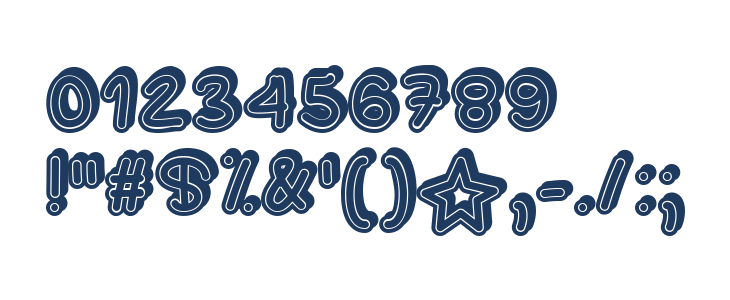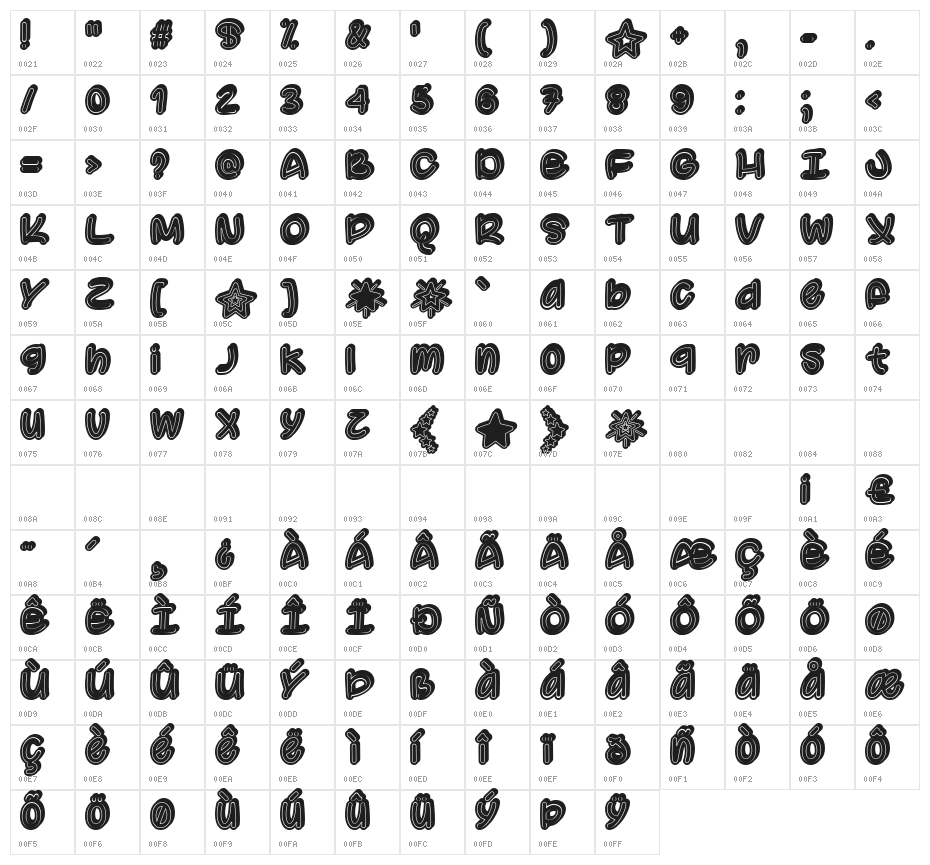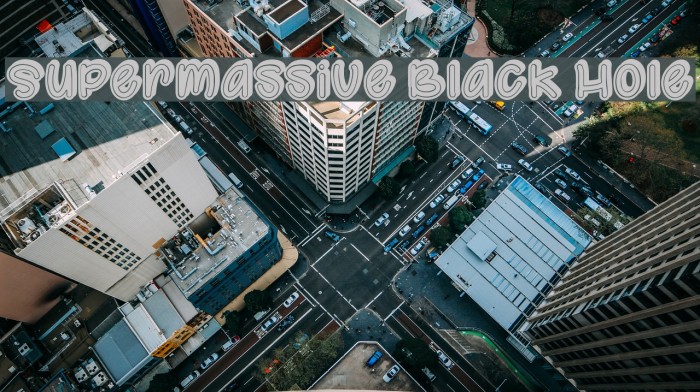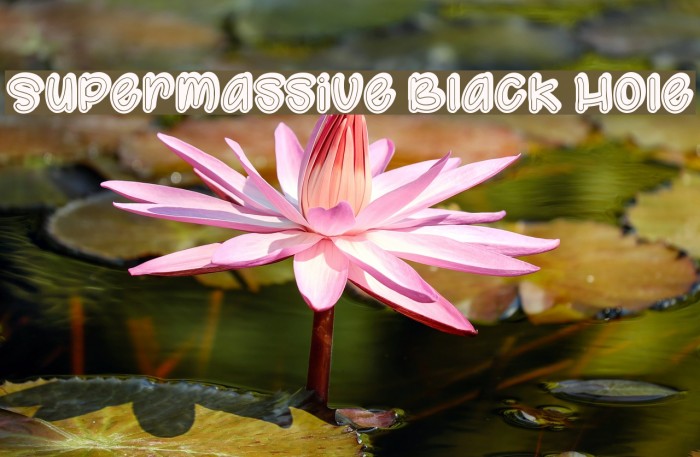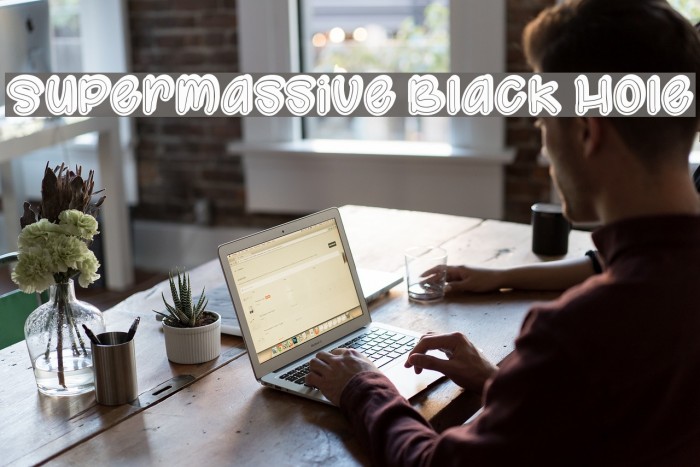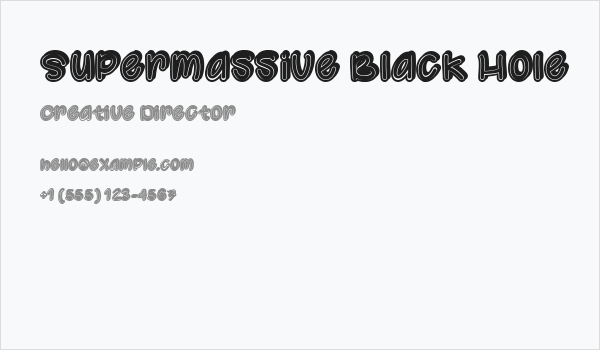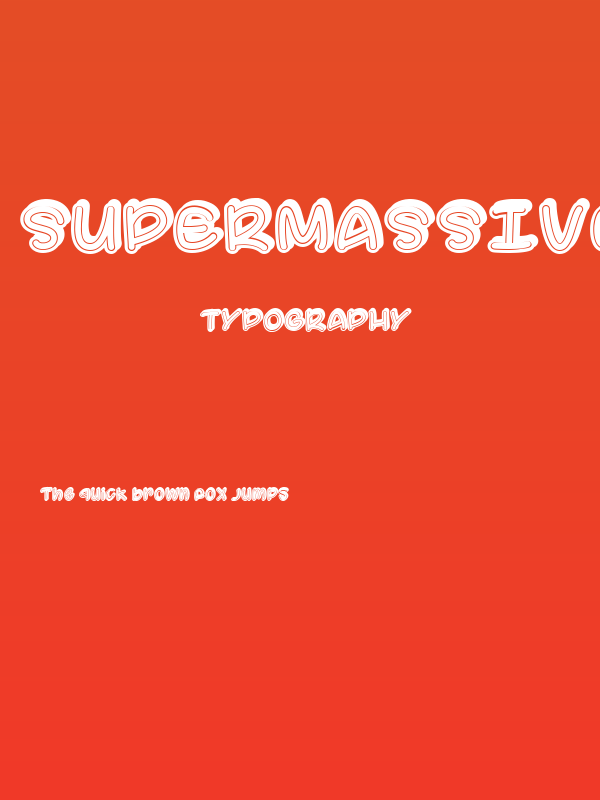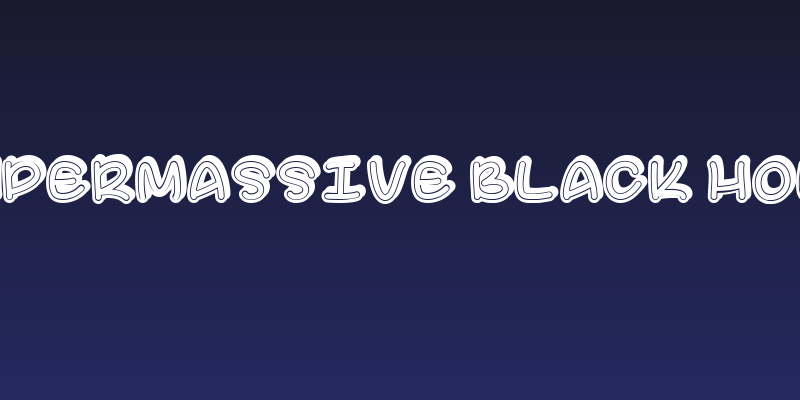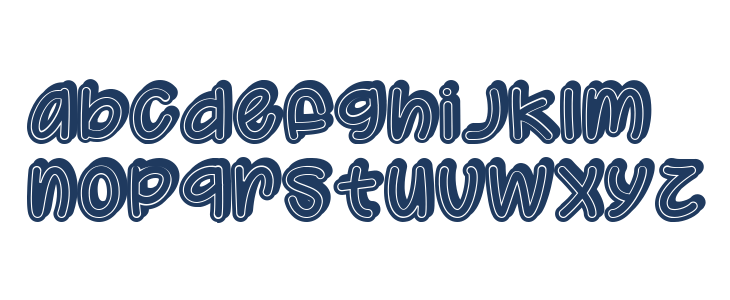
Supermassive Black Hole Font
Supermassive Black Hole Description
This font features a bold, playful style with a thick outline around each character, giving it a cartoonish and fun appearance. The letters are rounded and have a bubble-like quality, which makes them stand out with a strong visual presence. The uppercase and lowercase letters maintain a consistent style, with the lowercase letters slightly smaller but equally bold. Numbers and special characters follow the same design principles, ensuring uniformity across all elements. The font's unique style is eye-catching and suitable for projects that require a lively and energetic vibe.
| Overall Style | Playful, Cartoonish, Fun |
| Use Case | Headlines, Posters, Branding |
| Proposed Projects | Ideal for children's books, comic strips, playful branding, or any project needing a fun and energetic typeface. |